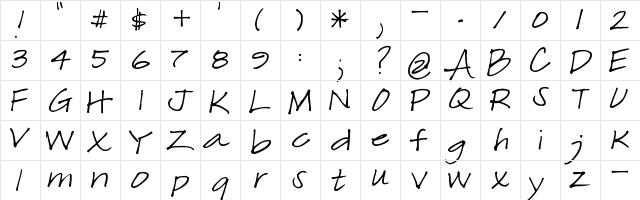
Pea Soniablu Regular
Design Context for Pea Soniablu Typeface
Pea Soniablu is a composed and adaptable typeface that performs quietly and consistently across a wide range of design contexts.